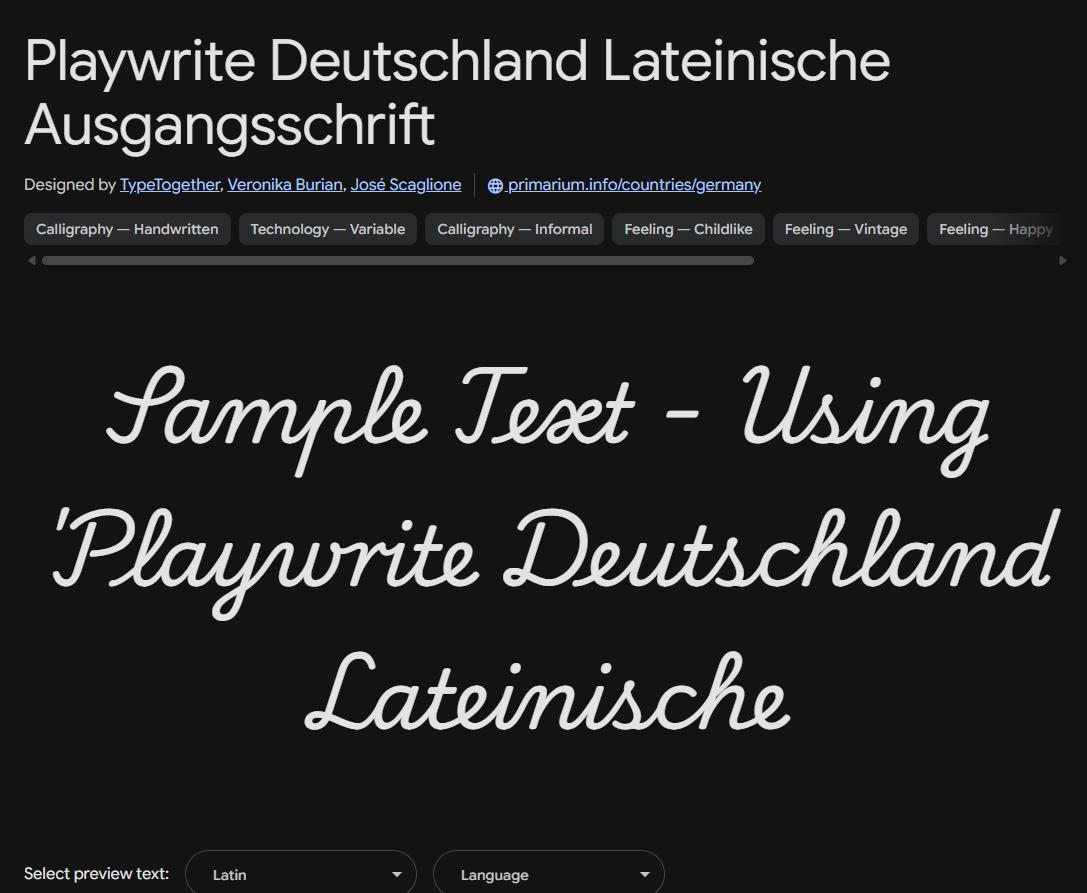
Developed by the renowned foundry TypeTogether under the expertise of Veronika Burian and José Scaglione, Playwrite Deutschland Lateinische Ausgangsschrift serves as a high-performance digital interpretation of Germany's traditional 1953 school script. This variable font, featuring a single axis for weight interpolation, utilizes advanced OpenType tables to maintain the integrity of the Lateinische Ausgangsschrift's continuous stroke connections while offering a fluid range of stroke widths for responsive design. By synthesizing strict pedagogical handwriting standards with contemporary skeleton-based design principles, the typeface provides a semantically rich tool for educational interfaces, ensuring that the rhythmic joins and specific letterforms of the Latin-based cursive standard remain legible and authentic across modern multi-platform environments.
The Playwrite Deutschland Lateinische Ausgangsschrift typeface represents a sophisticated synthesis of mid-century pedagogical standards and contemporary variable font technology, digitizing the 1953 German school script with a dynamic range of weight and slant axes. As an informal calligraphic family, it utilizes advanced OpenType features to replicate the active, rhythmic flow of human handwriting, imbuing digital interfaces with a rugged yet happy aesthetic that feels both vintage and childlike. This variable-width architecture allows designers to fine-tune the playful, handwritten strokes, preserving a sense of nostalgic authenticity while ensuring semantic clarity across diverse screen resolutions. By blending a spirited, active energy with a durable, rugged texture, the font family offers a unique perspective on localized educational heritage, transforming a traditional instructional tool into a versatile, high-performance typographic solution for modern, playful branding.
Due to its specialized pedagogical origins as a digital interpretation of the 1953 German school script, Playwrite Deutschland Lateinische Ausgangsschrift-designed by TypeTogether's Veronika Burian and José Scaglione-is fundamentally unsuitable for high-stakes industrial environments, legal documentation, or fintech user interfaces where instantaneous legibility and the reduction of cognitive load are critical. The typeface's complex glyph architecture, characterized by continuous cursive stroke connections and variable weight axes that prioritize instructional fluidness over optical clarity at small scales, fails to meet the stringent WCAG 2.1 accessibility requirements necessary for high-density data visualization or aeronautical instrumentation. In contexts requiring a neutral typographic voice, such as corporate restructuring reports or medical labeling, the specific ductus and ornamental terminal flourishes of this Latin-based Ausgangsschrift model introduce excessive visual noise, making it an inappropriate choice for any professional vertical that demands the high-contrast distinction and structural stability found in geometric or humanist sans-serifs.
Playwrite DE LA is specifically designed to follow the German "Grundschrift" educational standards, simplifying letterforms for young learners. By adhering to the Deutsche Linien-Antiqua specifications, this variable font dynamically scales stroke contrast to ensure optical consistency across pedagogical materials.
While highly expressive, its primary use case is decorative or educational rather than long-form UI text on small screens. The font's low stroke modulation helps maintain clarity on high-DPI displays, but specialized kerning adjustments may be required to prevent letter collisions in compact mobile layouts.
The font includes full support for the Latin-1 Supplement character set, which covers all necessary German diacritics and special characters. Technical encoding ensures that the Eszett and capital umlauts align perfectly with the baseline, preventing the vertical displacement common in non-standardized script fonts.
Line spacing should be increased slightly beyond the default to accommodate the extended ascenders and descenders characteristic of German cursive. Setting the leading to at least 140% of the font size prevents clashing between the descenders of one line and the ascenders of the next in dense pedagogical blocks.
It is an excellent choice for print media because its vector paths are optimized for sharp edges at various scales. The font's outline precision remains intact at 1200 DPI, ensuring that the subtle loops of the cursive characters remain crisp during the high-volume laser printing process.
The font uses advanced OpenType features to create seamless connections between characters as the user types. Through the use of contextual alternates (calt), the glyphs adapt their exit and entry strokes based on neighboring characters to mimic authentic handwriting patterns.
Its unique aesthetic makes it a standout choice for headers that require a personal, hand-crafted feel in branding or web design. When used at larger display sizes, the intricate details of the German cursive style become a focal point, leveraging high glyph density to improve visual interest.
For optimal readability in educational contexts, the font should be set at 14 points or higher to preserve the clarity of the loops. At sizes below 12px, the counter spaces in the lowercase letters risk clogging, which can significantly hinder word recognition for developing readers.